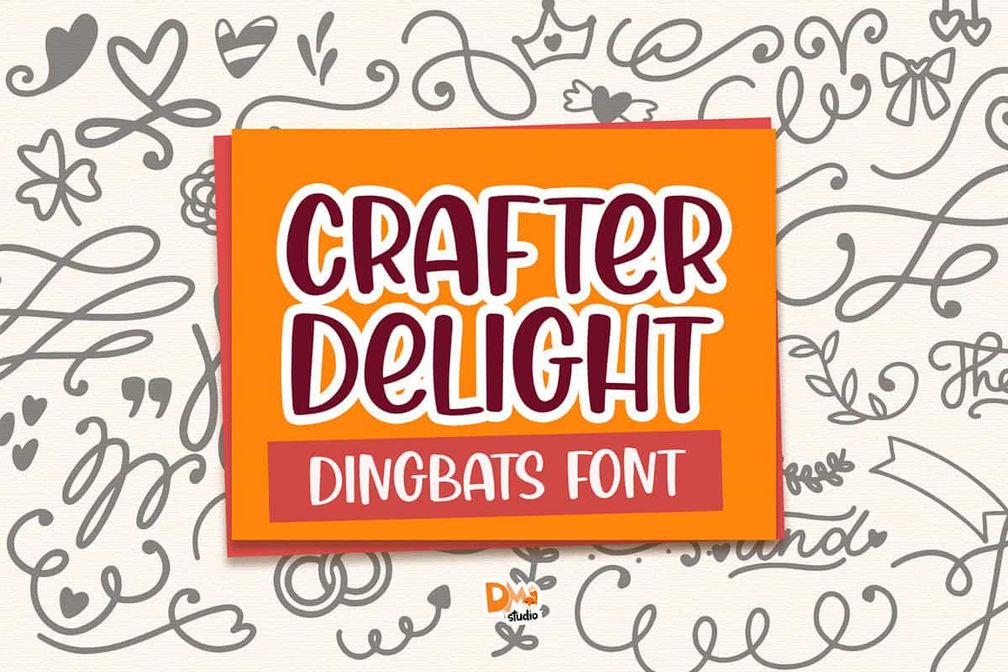
Crafter Delight Dingbats Font
The Crafter Delight Dingbats Font is a whimsical and versatile collection of decorative symbols and icons designed to add a delightful touch to your creative projects. Crafted with precision and creativity, this dingbats font is a treasure trove of charming illustrations that can effortlessly enhance your designs.
- Diverse Collection: Explore a vast array of doodles, icons, and symbols catering to various themes, from nature and travel to hobbies and celebrations. The Crafter Delight Dingbats Font offers a rich assortment of visually appealing elements to suit any project.
- Crafted with Precision: Each dingbat is meticulously crafted to ensure clarity and aesthetic appeal. Whether you’re designing invitations, posters, scrapbooks, or digital graphics, these symbols will add a touch of handcrafted charm to your work.
- Versatile Application: Perfect for both print and digital media, this dingbats font is designed for versatility. Elevate your projects, from DIY crafts to professional graphic design, with these delightful and easily recognizable icons.
- User-Friendly: The font is easy to use, allowing you to insert these charming symbols directly into your text. Compatible with major design software, the Crafter Delight Dingbats Font seamlessly integrates into your creative workflow.
- Endless Creativity: Unlock your creativity with a font that goes beyond letters. Mix and match the dingbats to create unique patterns, borders, and illustrations, giving your designs a personalized and imaginative flair.
Ideal For:
- DIY Projects
- Greeting Cards
- Scrapbooking
- Social Media Graphics
- Invitations and Announcements
- Branding and Packaging
Enhance your designs with the enchanting and diverse collection of symbols found in the Crafter Delight Dingbats Font. Let your creativity run wild as you infuse your projects with the magic of these whimsical illustrations. Elevate your design game and delight your audience with this charming dingbats font.